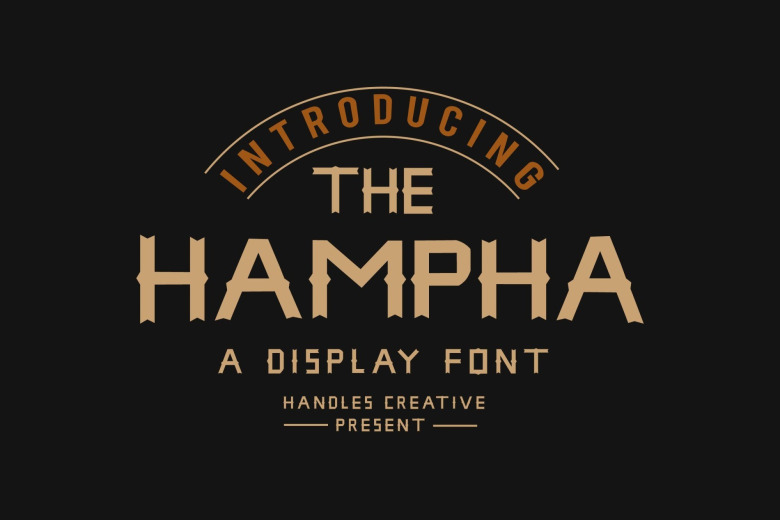
The Hampha Font
Introducing The Hampha Display Font is an incredibly Unique and Interesting Display Font that is absolutely great for your next creative project such as logos, printed quotes, invitations, cards, product packaging, headers, Logotype, Letterhead, Poster, Apparel Design, Label, and etc.